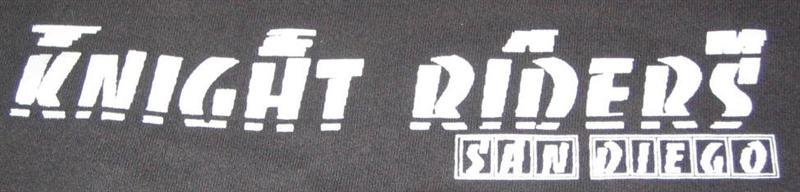
Anyone have some ideas on the fonts used here? I can't seem to find them. Thanks in advance
Rick Certified Enneadecagon Designer Oct 4, 2005 #4 Team looks like Banco streeeeeetched way too much......